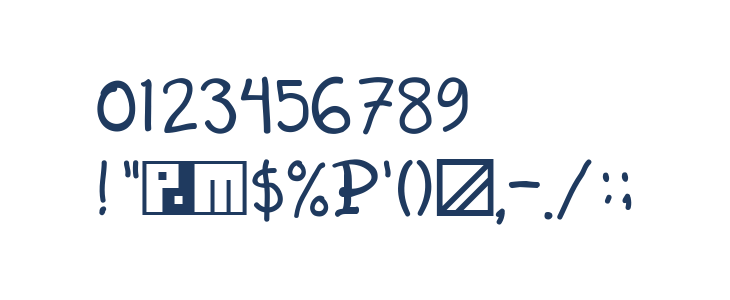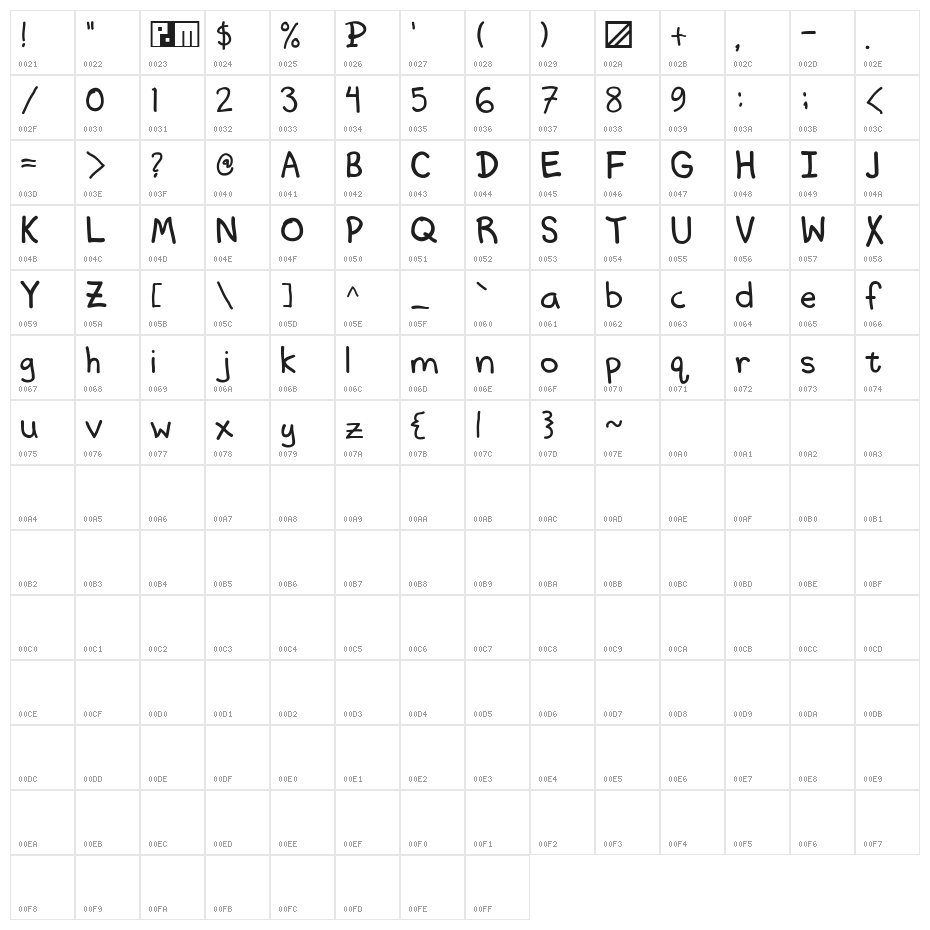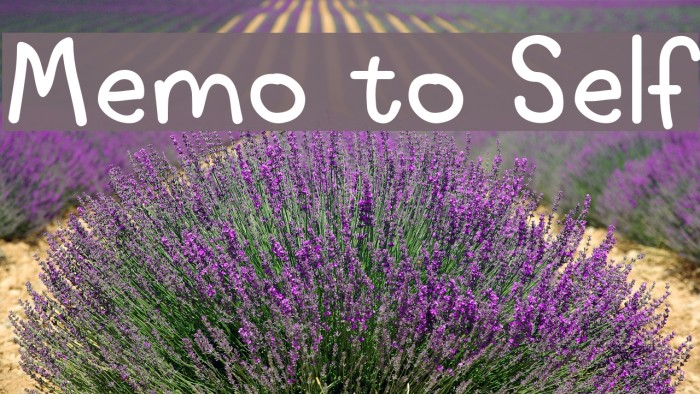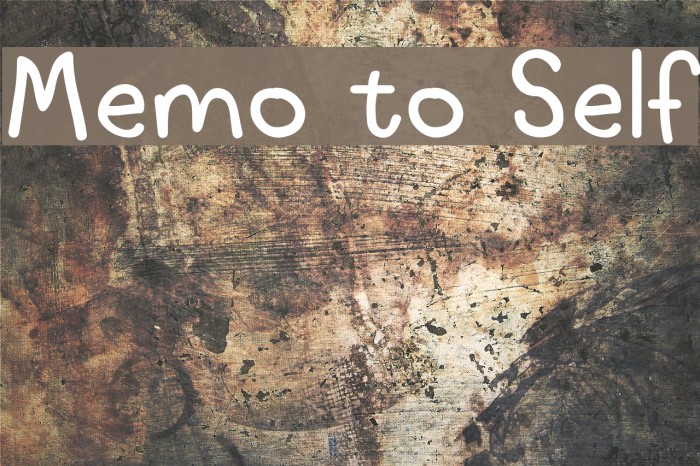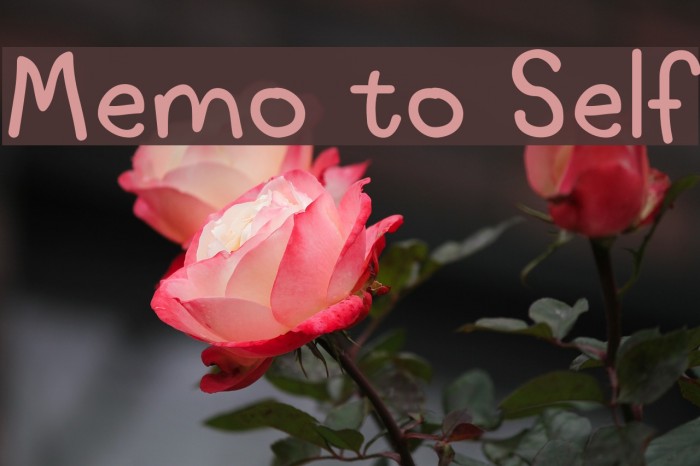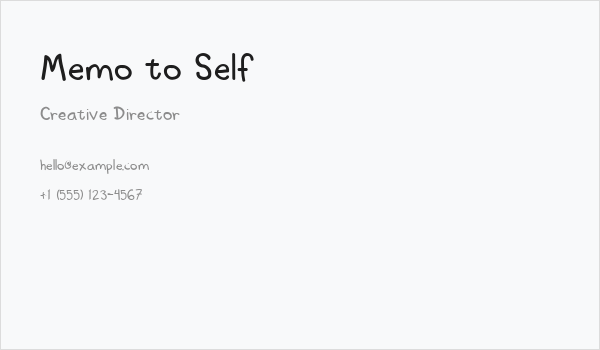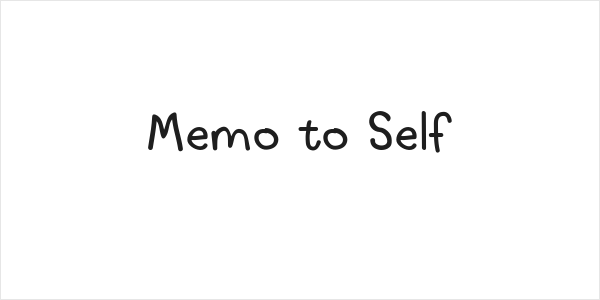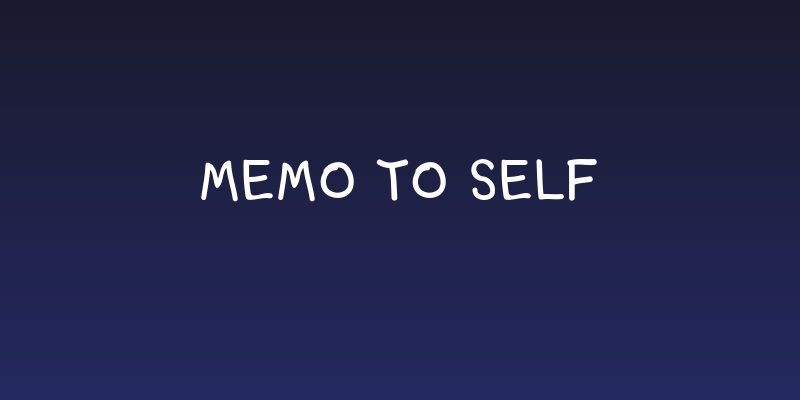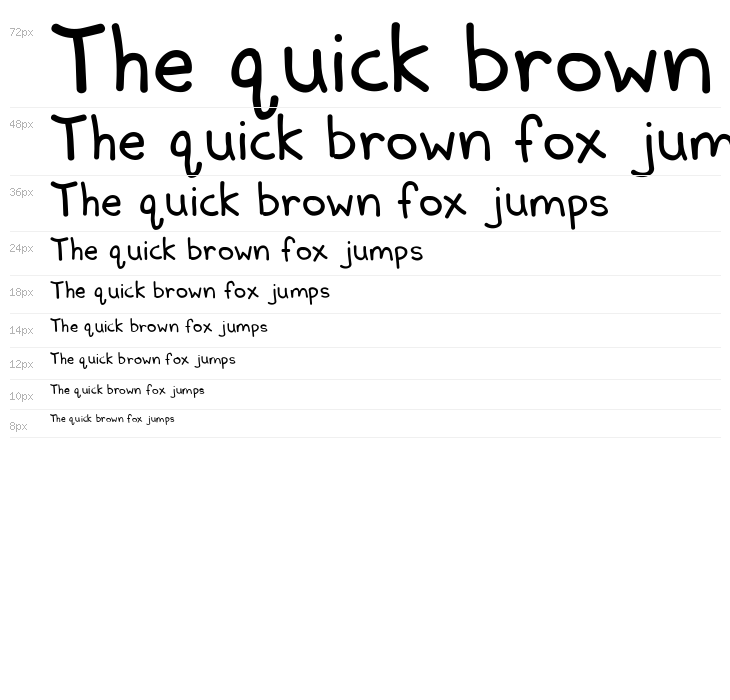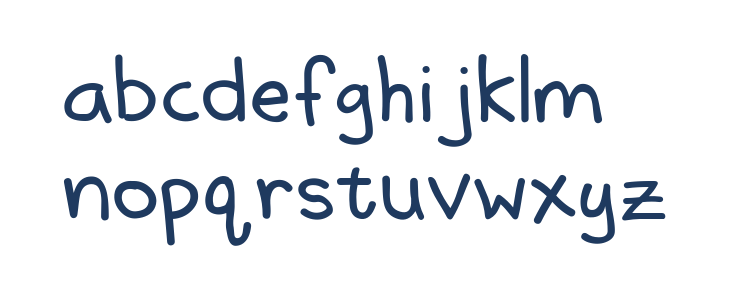
Memo to Self Font
Memo to Self Description
This playful and casual handwritten font exudes a friendly and approachable vibe. The characters are slightly rounded with a consistent stroke width, giving it a uniform appearance. The uppercase and lowercase letters maintain a whimsical style, with some letters featuring unique curves and loops that add to its charm. The numbers and special characters are designed to match the overall aesthetic, making it versatile for various applications. Its informal nature makes it ideal for personal notes, creative projects, and designs that aim to convey warmth and personality.
| Proposed Projects | Ideal for personal notes, greeting cards, children's books, and informal branding. |